Modern sans serif fonts are the backbone of strong brand identity. They are clean, flexible, and scalable — perfect for logos, visual identity systems, and digital-first brands. The fonts below are carefully selected modern sans serifs that work exceptionally well for branding and logo typography.
Why Modern Sans Serif Fonts Dominate Branding Today
Here’s the truth most people miss:
Your font is your brand voice.
Before users read copy, they feel typography. Sans serif fonts feel modern, confident, and intentional — which is why tech brands, startups, and global companies rely on them for visual identity.
I’ve seen great logos fail simply because the font couldn’t scale or felt dated six months later. The fonts below avoid that trap.
What Makes a Sans Serif Font Ideal for Branding?
Direct answer:
The best sans serif fonts for branding balance neutrality with personality and remain readable across every touchpoint.
Key traits to look for:
- Clean geometry and spacing
- Multiple weights for flexibility
- Strong legibility at small logo sizes
- Visual consistency across digital and print
15 Modern Sans Serif Fonts for Branding and Logos
1. Akira Expanded
Best for: Bold logos, headlines, statement branding
Akira Expanded is wide, powerful, and unapologetically modern. Its strong geometric structure makes it perfect for logos that need instant impact.
Brand feel: Confident, futuristic
Works best for: Logo typography, posters, bold brand marks
2. Saluna
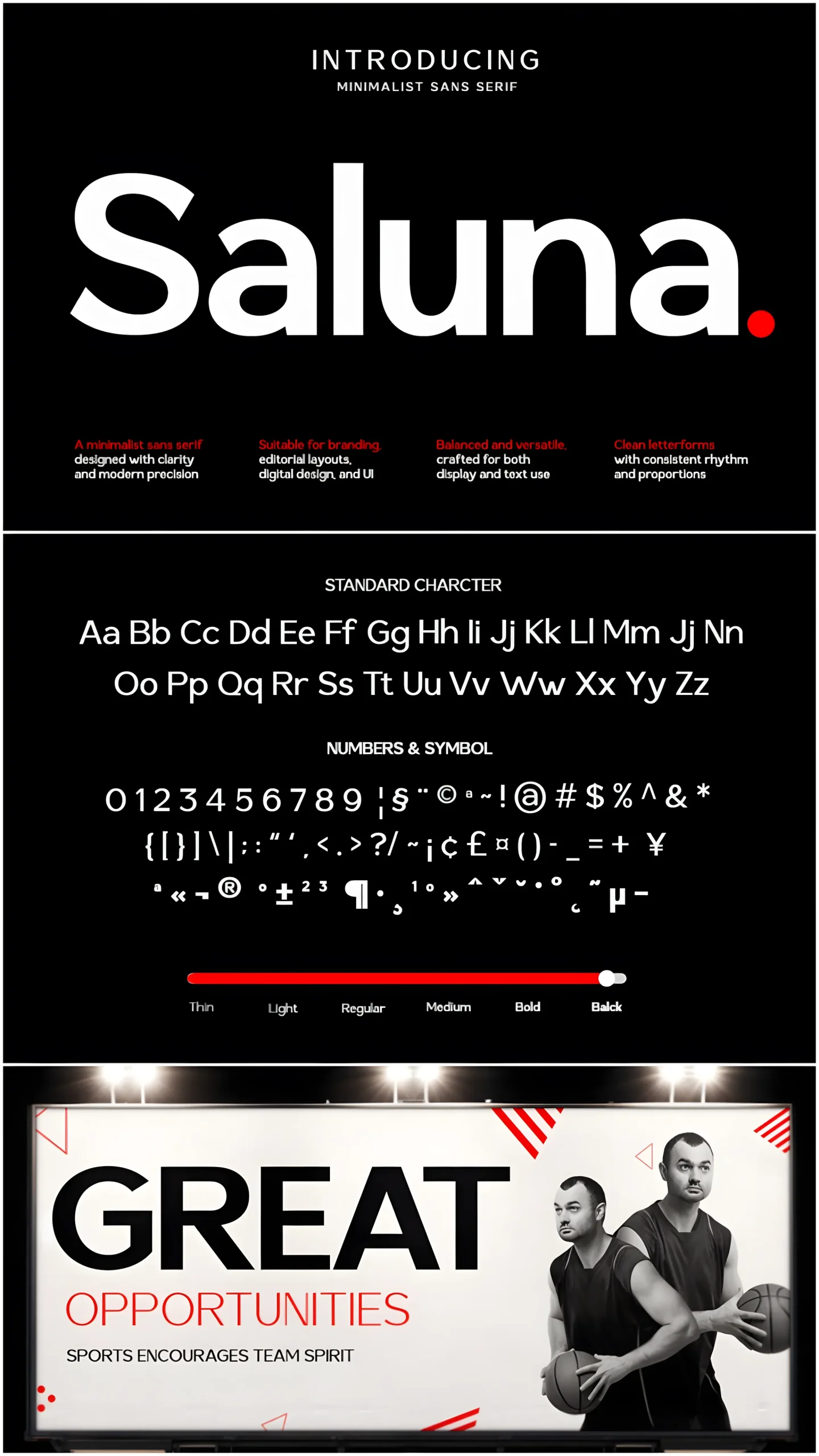
Best for: Corporate branding, clean brand systems
Saluna is a minimalist sans serif built for clarity and long-term use. It’s one of those fonts that quietly elevates everything it touches.
Brand feel: Professional, neutral, modern
Works best for: Brand identity systems, websites, editorial layouts
3. TRT Ontika
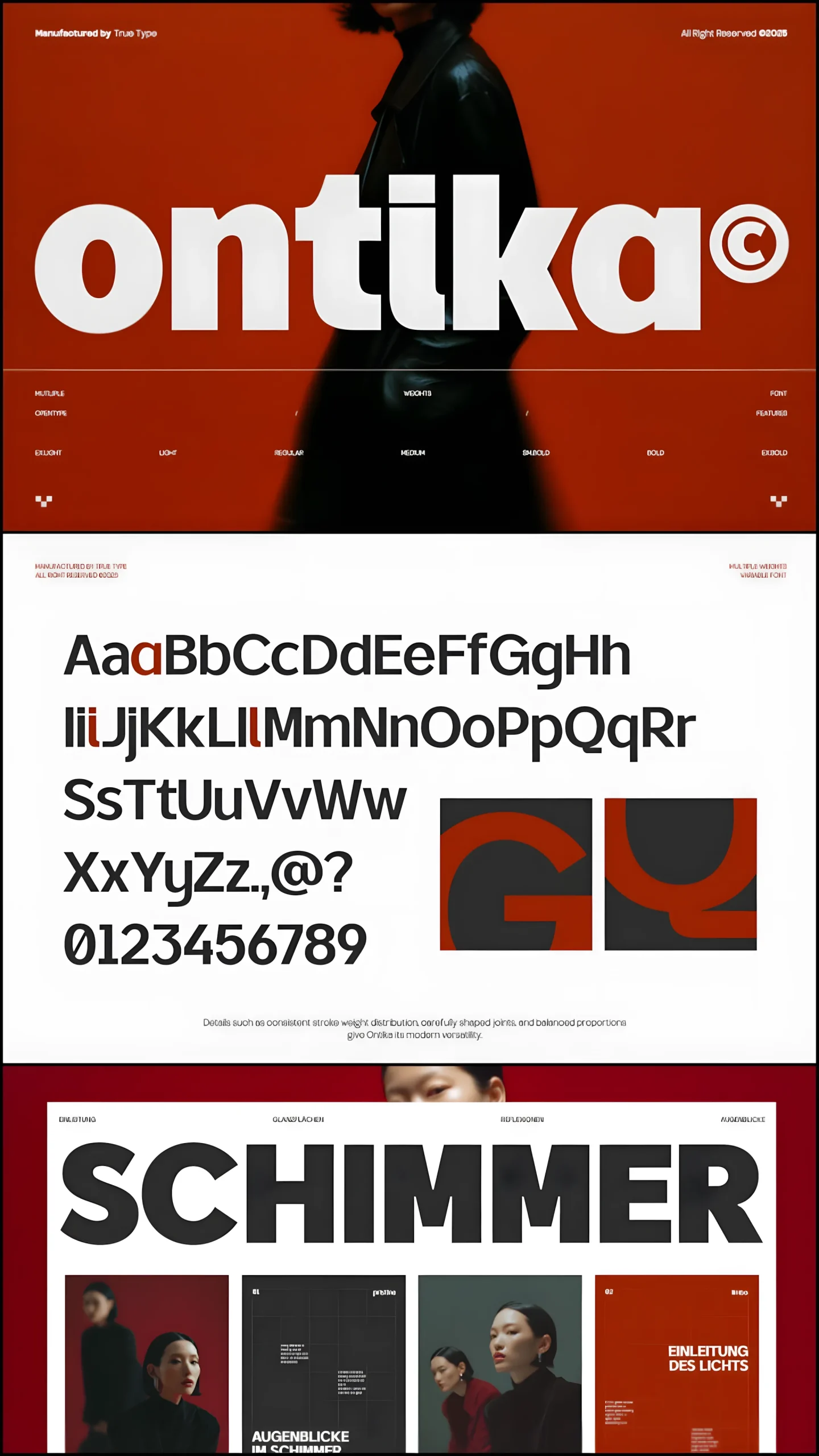
Best for: Contemporary brands with personality
TRT Ontika blends clean structure with subtle quirks. It feels modern without being sterile — a rare balance.
Brand feel: Confident, creative
Works best for: Visual identity, logos, editorial branding
4. TRT Otilito
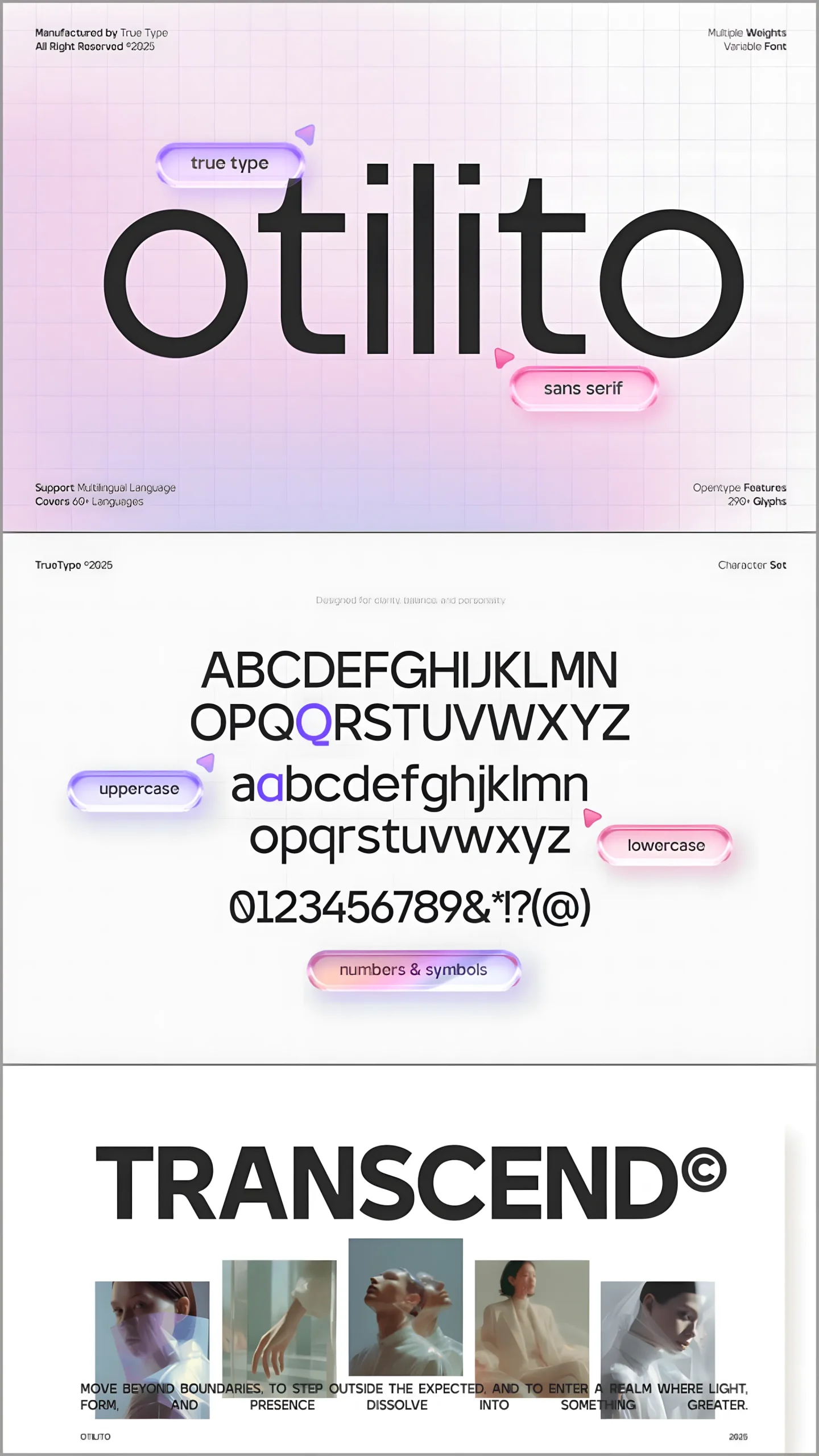
Best for: Versatile branding across platforms
Otilito is a semi-grotesque sans serif that scales beautifully. It feels honest, readable, and dependable — exactly what most brands need.
Brand feel: Balanced, modern
Works best for: Logos, UI, brand typography
5. Mango Dream
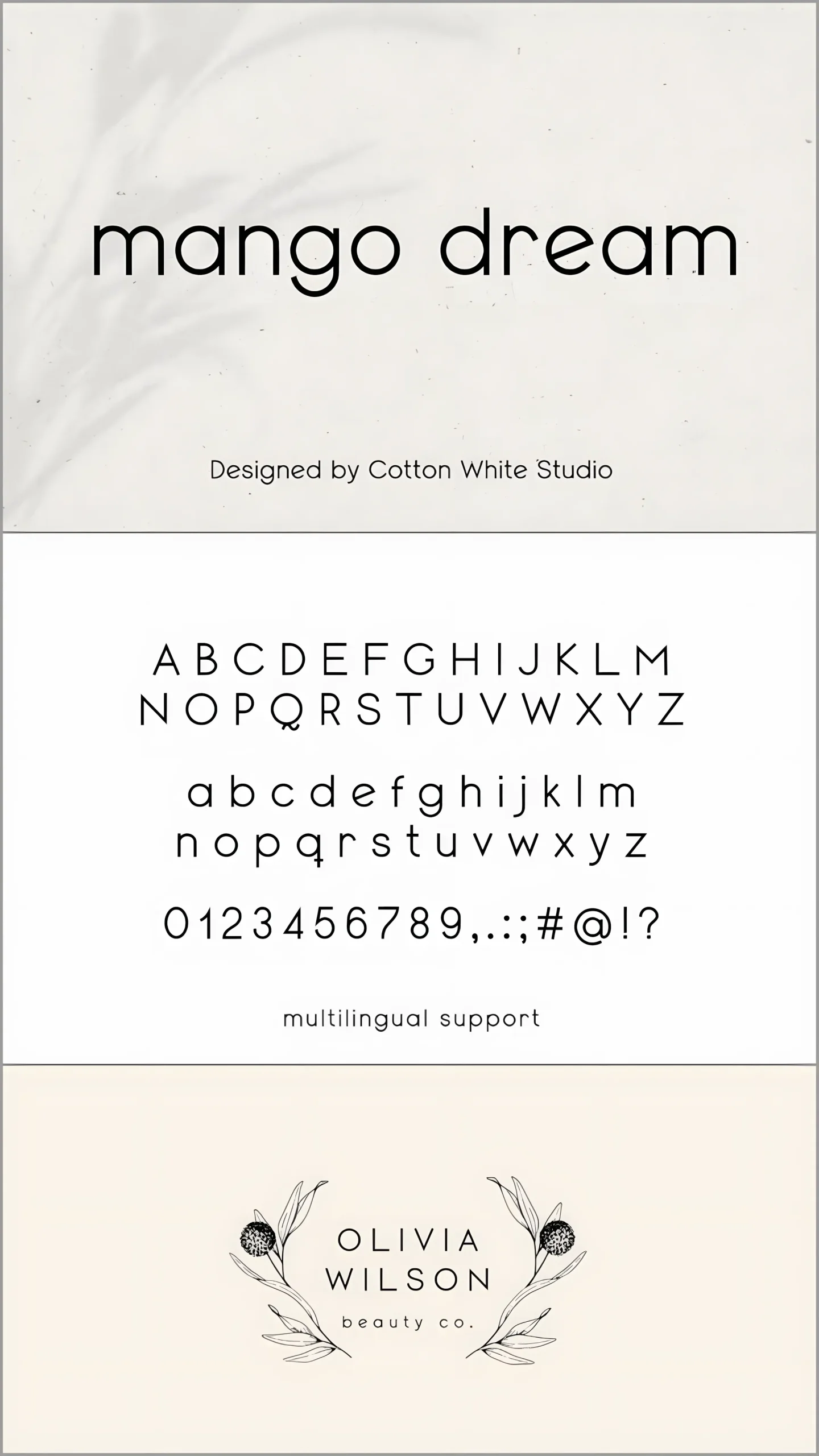
Best for: Lifestyle, fashion, soft branding
Rounded, friendly, and minimal. Mango Dream brings warmth without losing professionalism.
Brand feel: Elegant, approachable
Works best for: Lifestyle brands, social media, logo wordmarks
6. Aveton
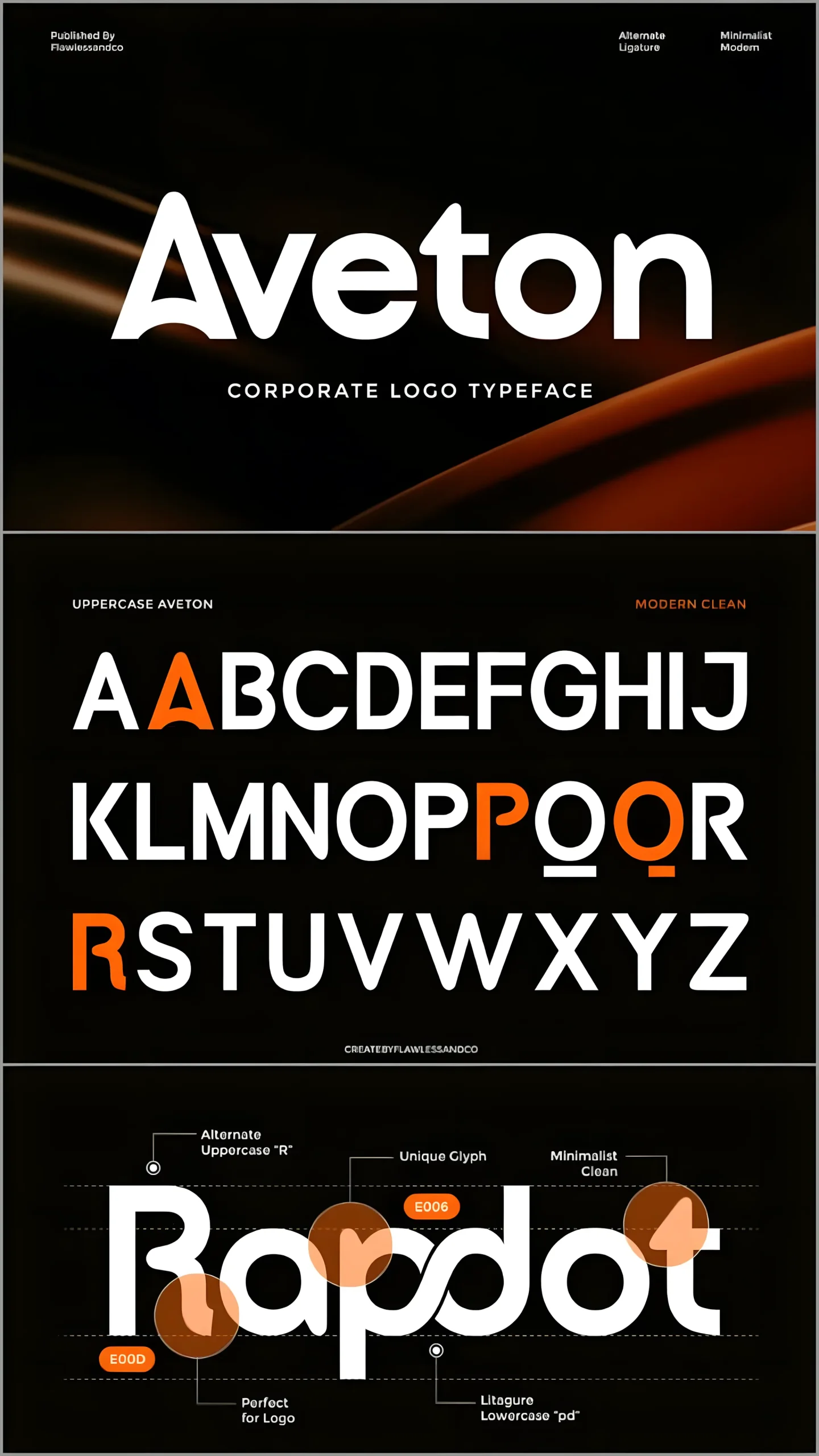
Best for: Corporate and B2B branding
Aveton feels structured and confident. It communicates reliability — perfect for professional services and tech brands.
Brand feel: Trustworthy, corporate
Works best for: Brand identity, presentations, logos
7. Magox
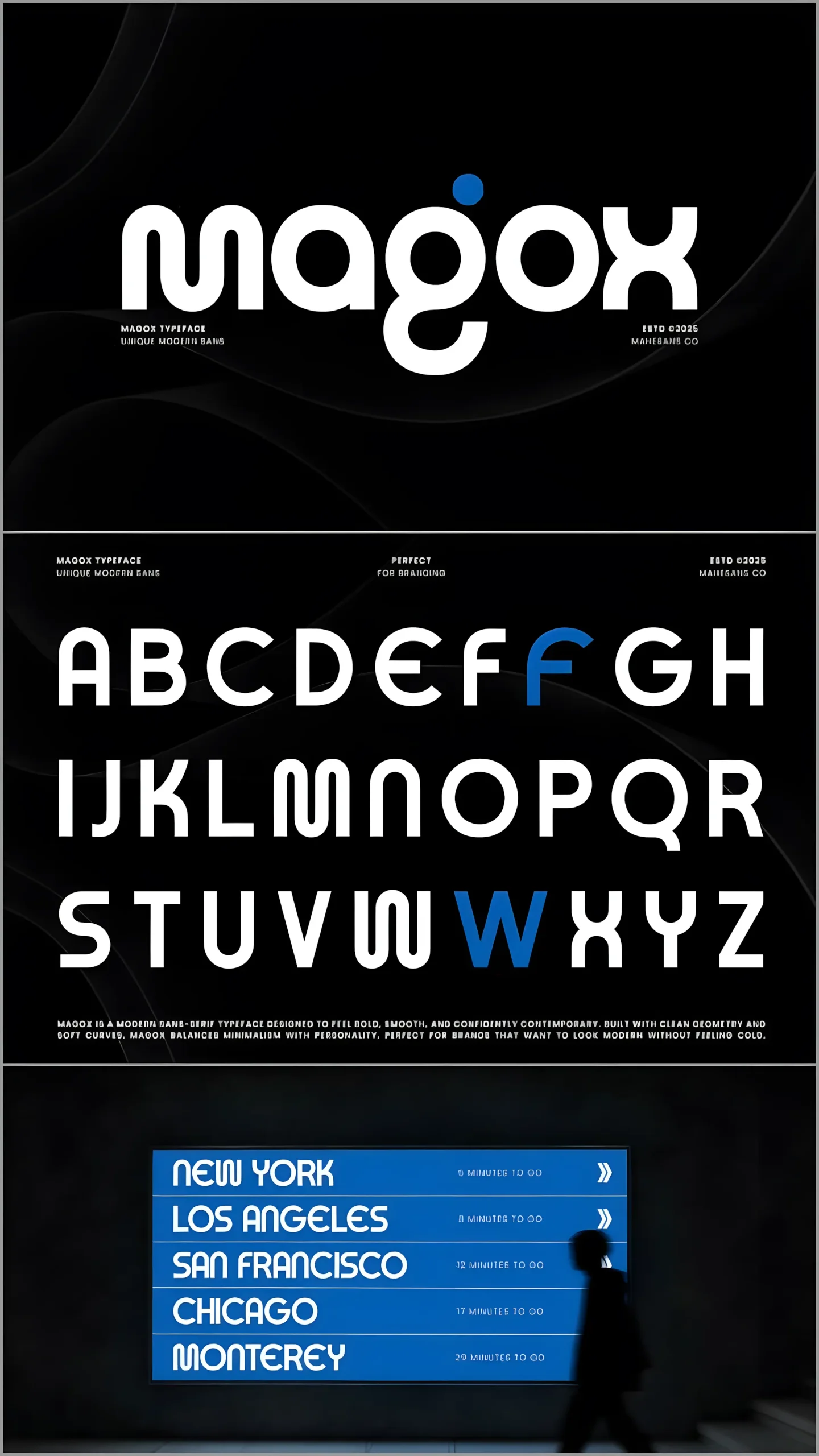
Best for: Premium and modern brands
Magox combines smooth curves with a contemporary feel. It stands out without shouting.
Brand feel: Sophisticated, modern
Works best for: High-end branding, logo typography
8. Kindel
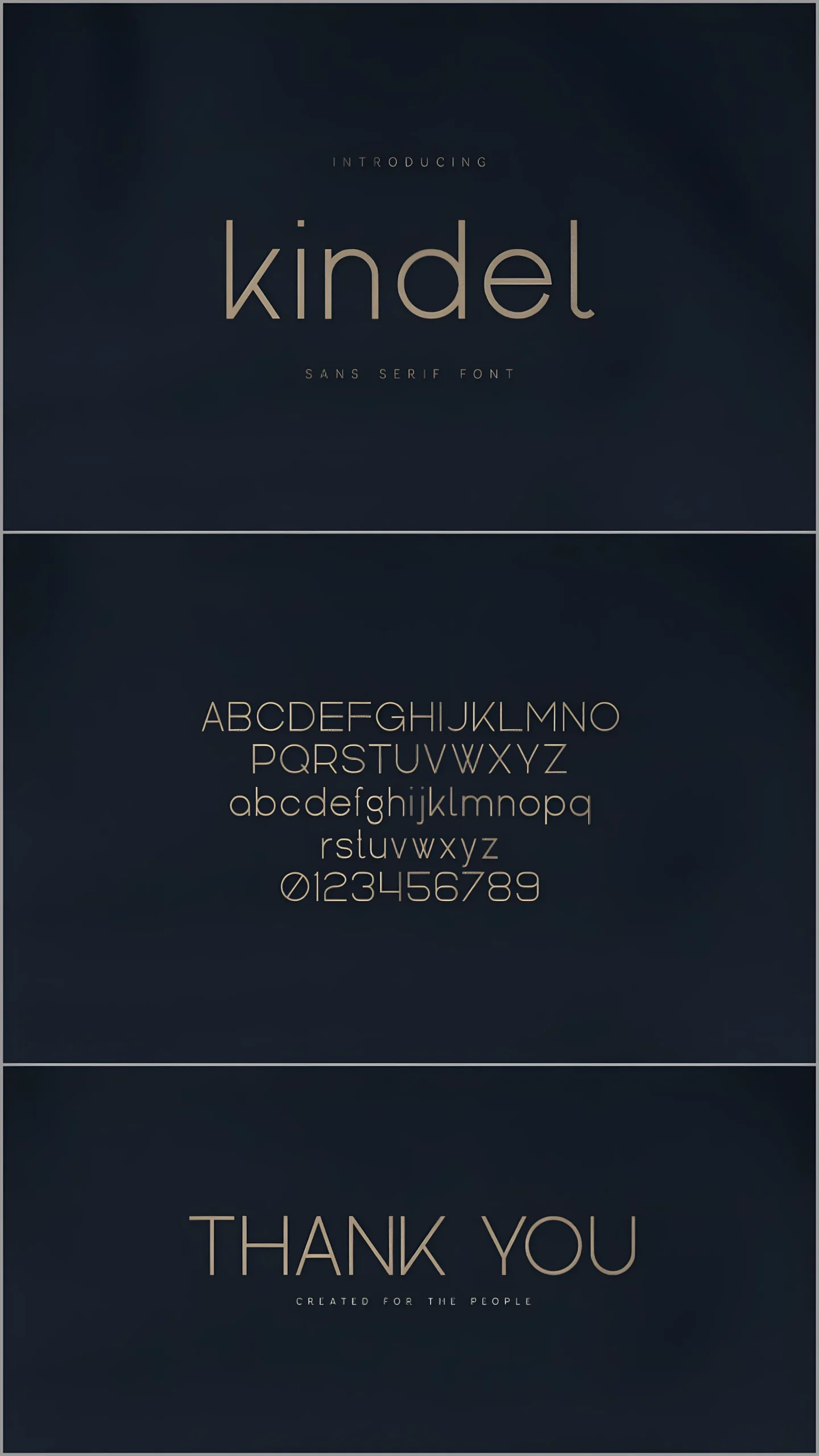
Best for: Friendly, human-centered brands
Kindel is soft, readable, and welcoming — ideal for brands that want to feel personal.
Brand feel: Warm, approachable
Works best for: Wellness, lifestyle, brand systems
9. Avalance
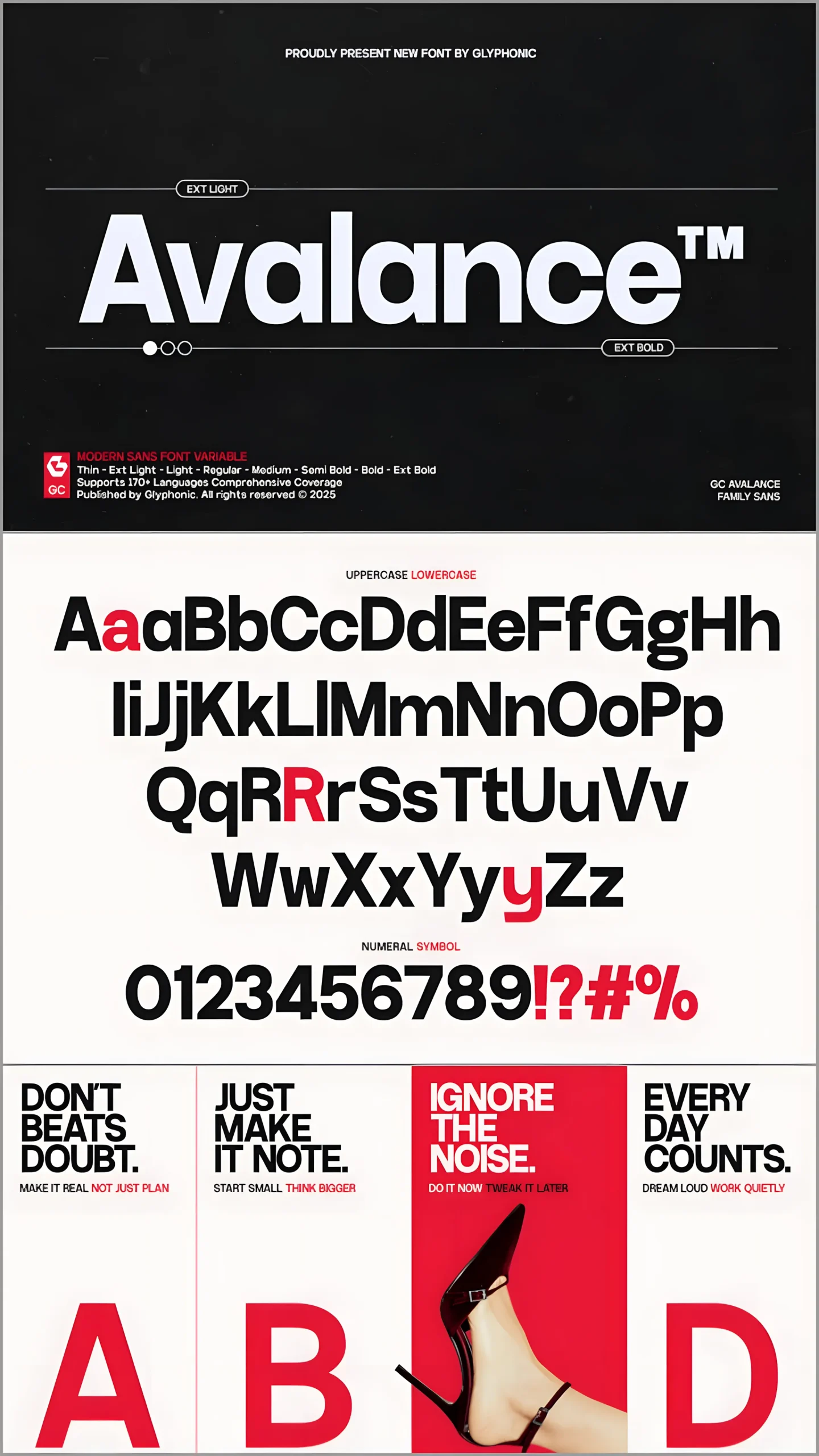
Best for: Tech startups and digital products
Avalance feels sharp and forward-looking. It’s well-suited for modern interfaces and brand ecosystems.
Brand feel: Innovative, tech-focused
Works best for: SaaS branding, UI, logos
10. GC Gambio
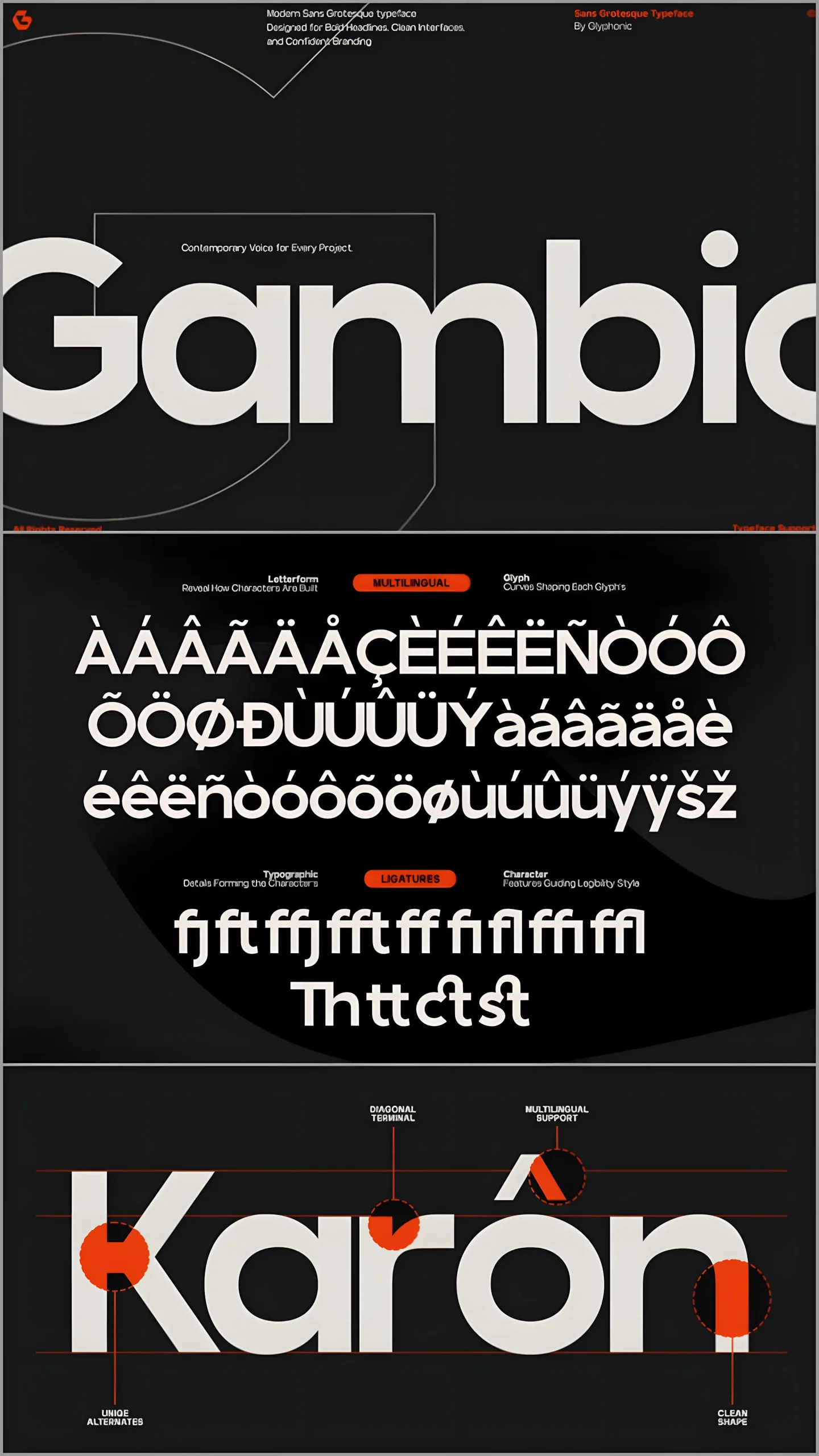
Best for: Editorial and UI-heavy brands
GC Gambio is neutral and functional. It doesn’t distract — it supports the message.
Brand feel: Clean, modern
Works best for: UX design, editorial layouts, branding
11. Gorga Romantic
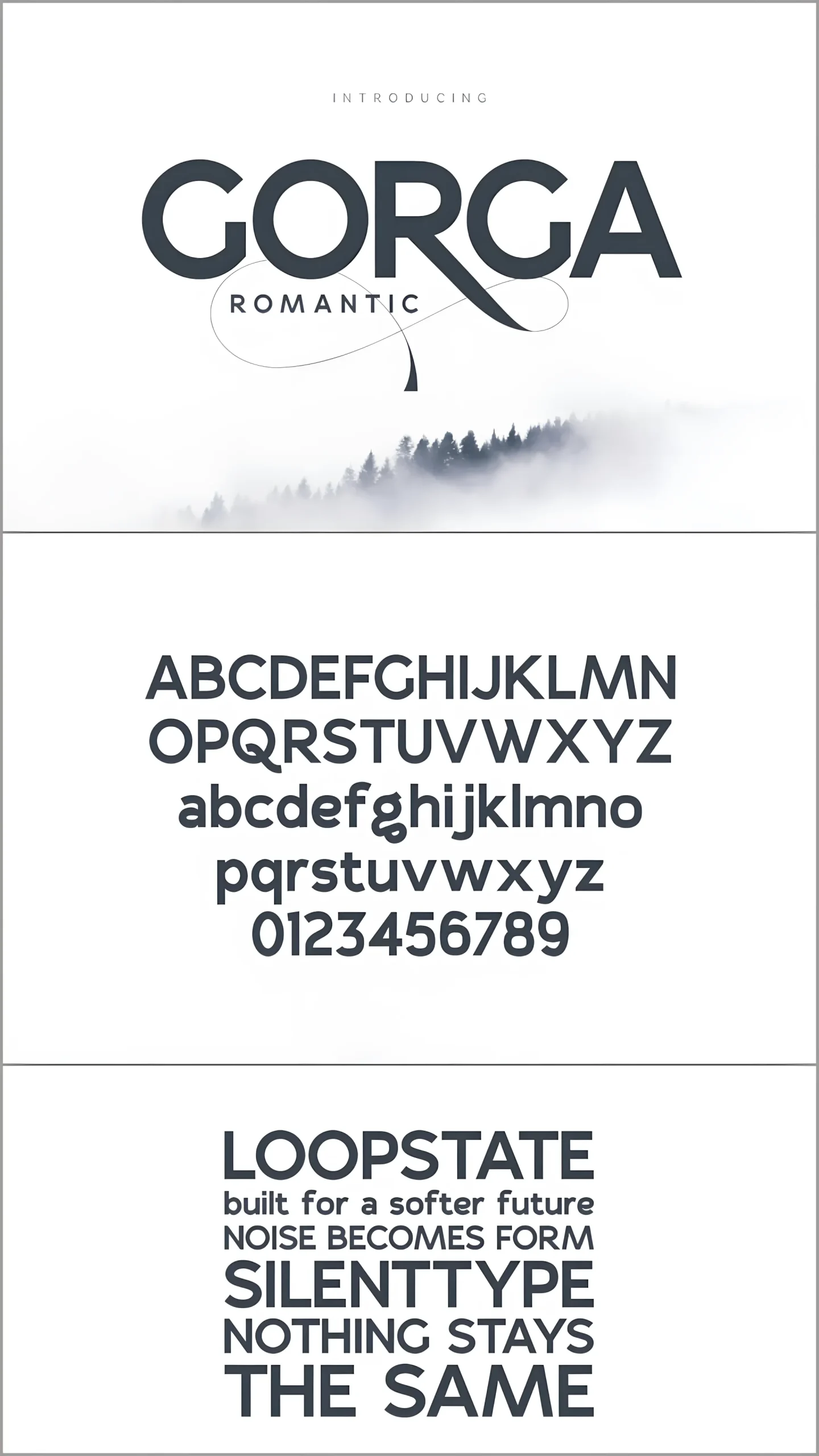
Best for: Expressive logo design
This font blends sans serif structure with decorative flair. It’s memorable and distinctive.
Brand feel: Artistic, bold
Works best for: Logo typography, creative brands
12. The Talk Expanded
Best for: Luxury and fashion branding
Wide letterforms give this font confidence and presence. It’s made for headlines and logos that need to stand out.
Brand feel: Premium, editorial
Works best for: High-fashion logos, brand campaigns
13. Alegust
Best for: Elegant modern branding
Alegust is refined and stylish without being stiff.
Brand feel: Contemporary, elegant
Works best for: Brand identity, logos, digital branding
14. Roby Evano
Best for: Creative and modern brands
A clean sans serif with character — Roby Evano feels current and flexible.
How does typography affect brand identity?
Typography shapes perception. The right font communicates trust, professionalism, or creativity before users read any content.
Final Thought
Fonts aren’t decoration.
They’re infrastructure.
Choosing the right modern sans serif font gives your brand a foundation that lasts — across logos, websites, products, and campaigns.
If you’re building a serious visual identity, every font on this list can carry that weight.